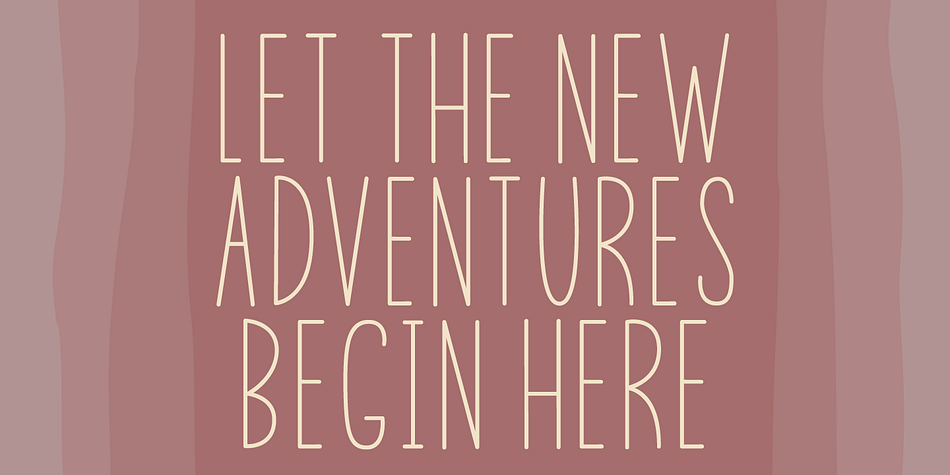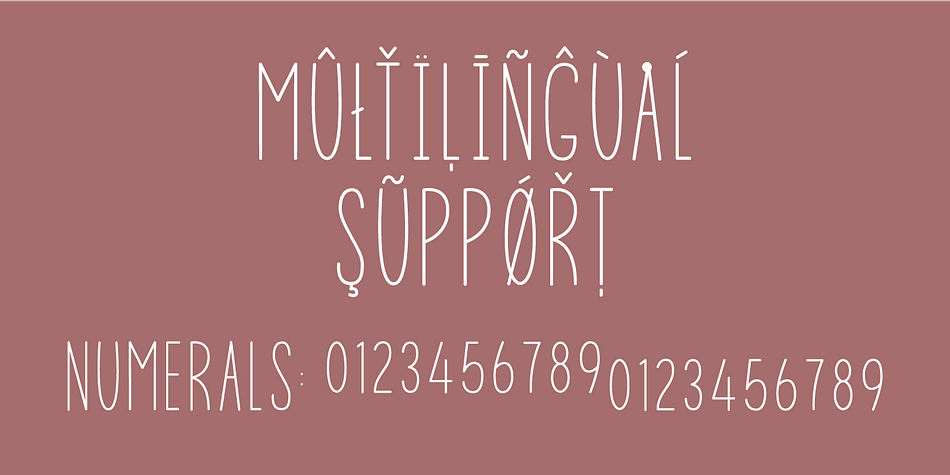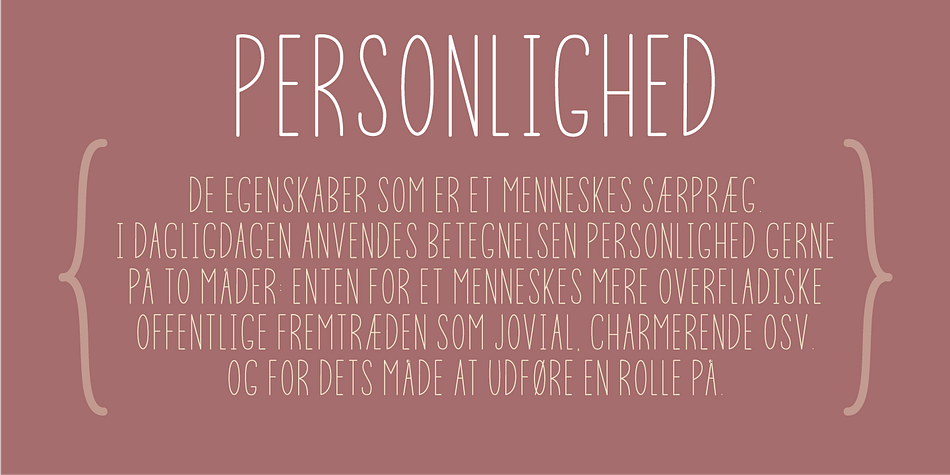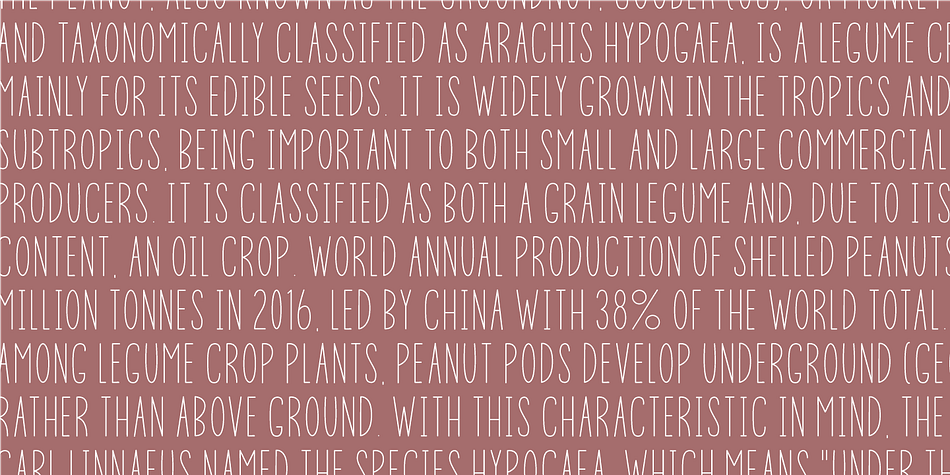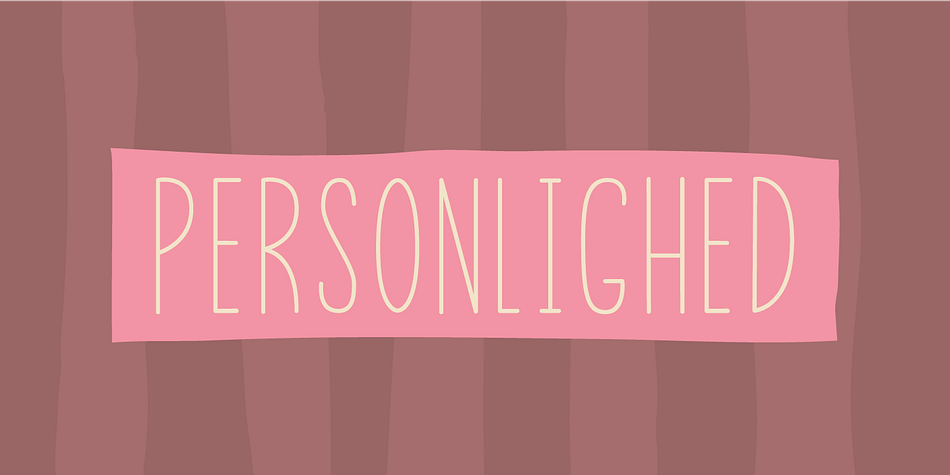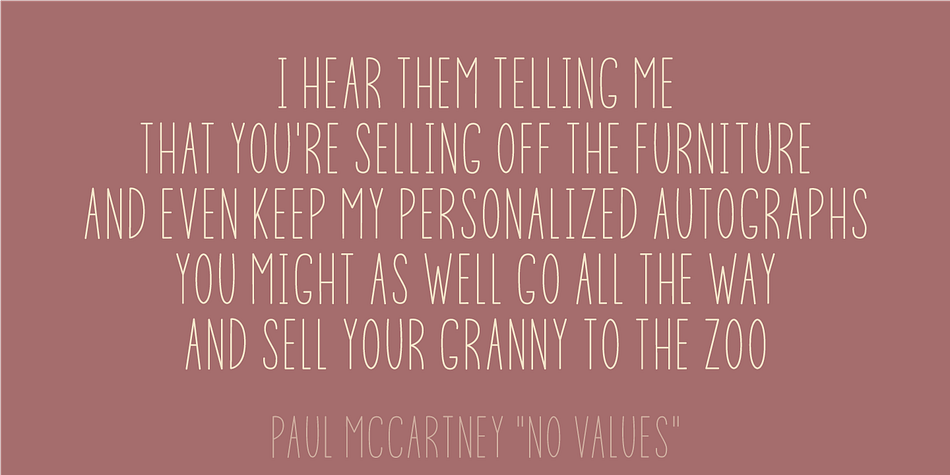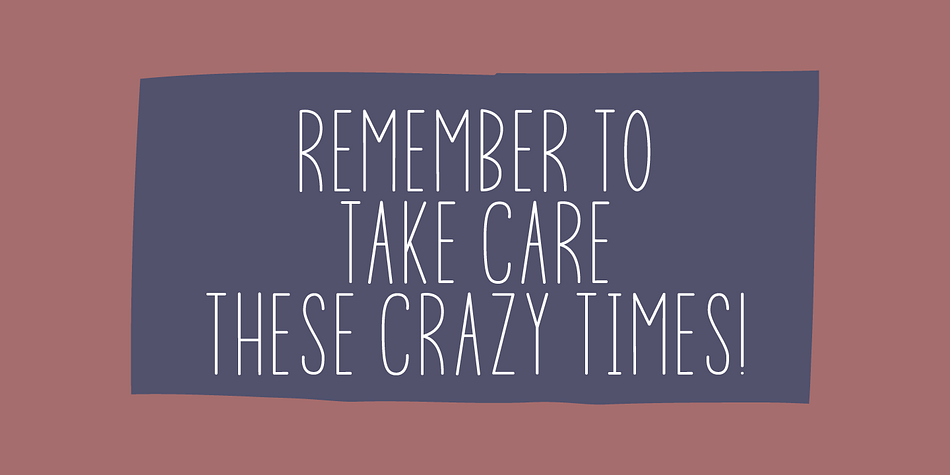
Designed by Jakob Fischer, Personlighed is a hand display and hand drawn font family. This typeface has two styles and was published by Bogstav.
Personlighed was originally a handdrawn font, but I decided to trace each glyph and make this super clean font instead. The idea of the font is about making a hybrid between the handdrawn lines and the “computerized” vector. If you look closely, I have some uneven lines here and there (not many, but are here and there!) I’ve also added some alternative versions of j, k, q, r and the ampersand